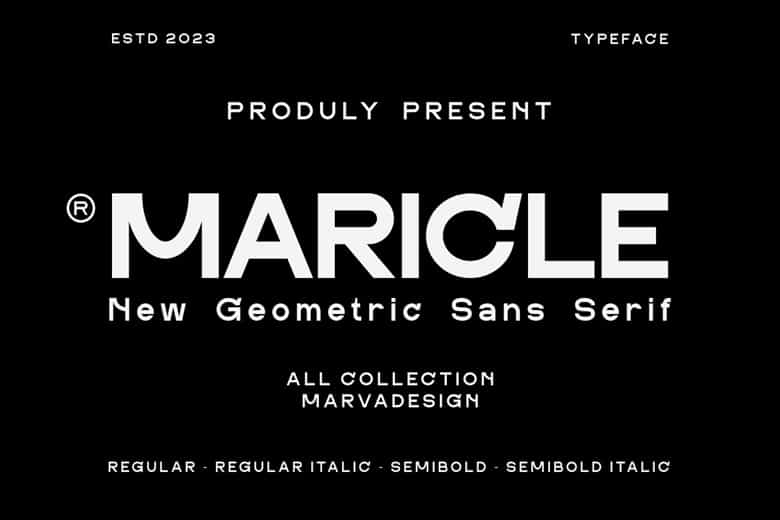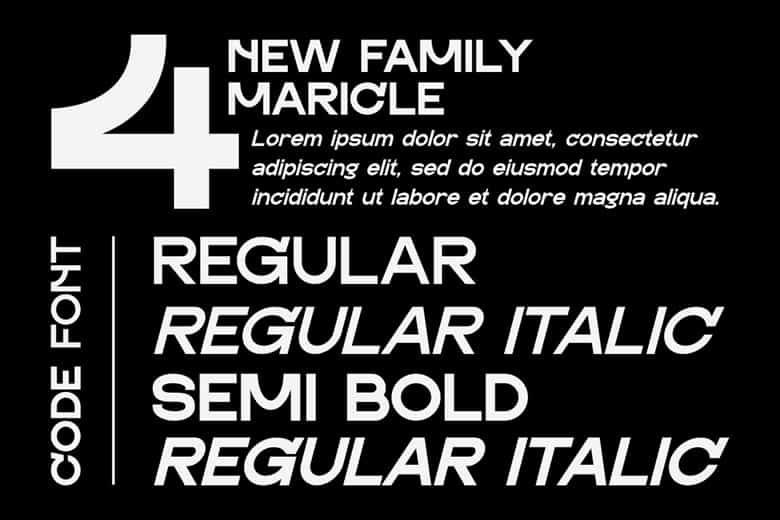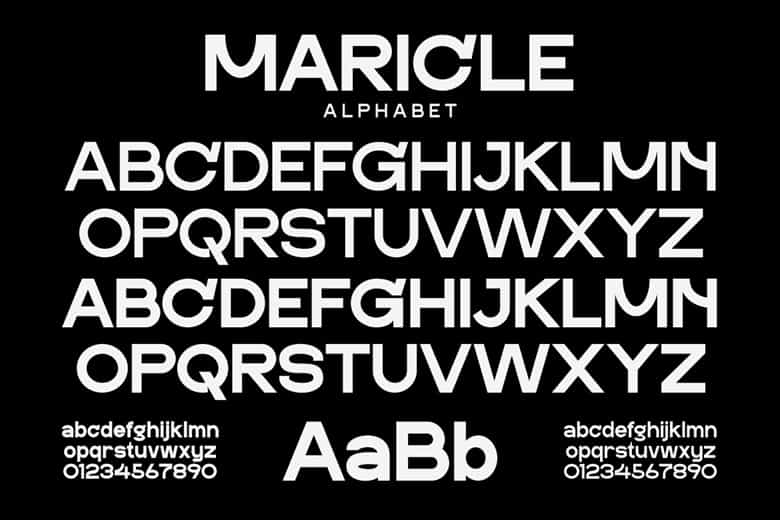
Maricle is a new sans serif typeface that represents clear and professional look with elegance. Its letters are balanced and its design is quite simple, which makes it appropriate for different uses. Great for anyone who is in need of a sophisticated and current look, Maricle offers a sophisticated touch to your work.